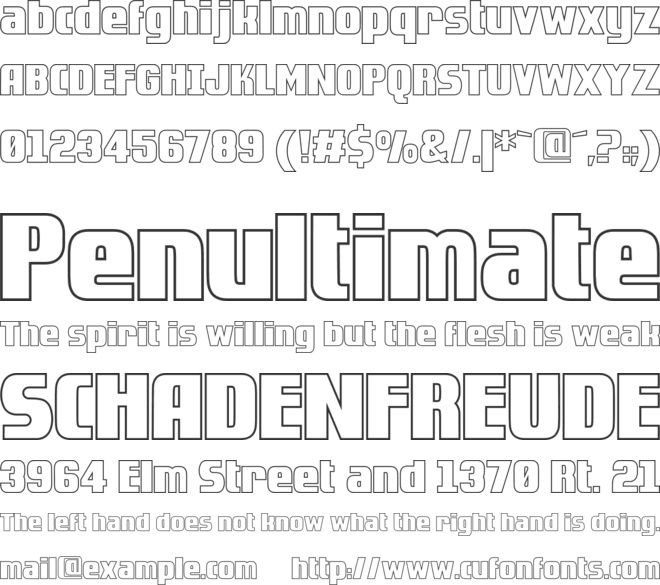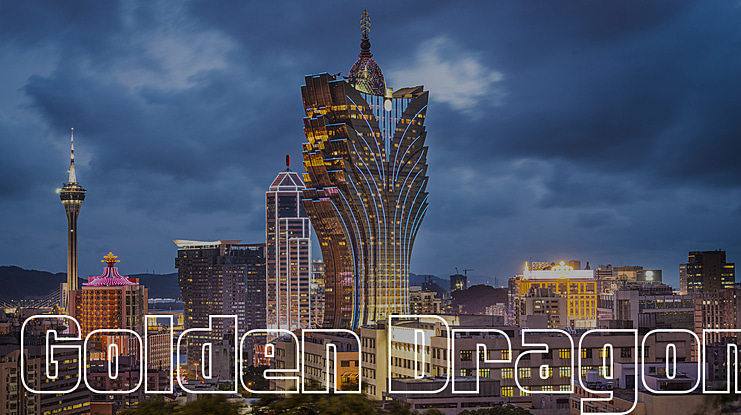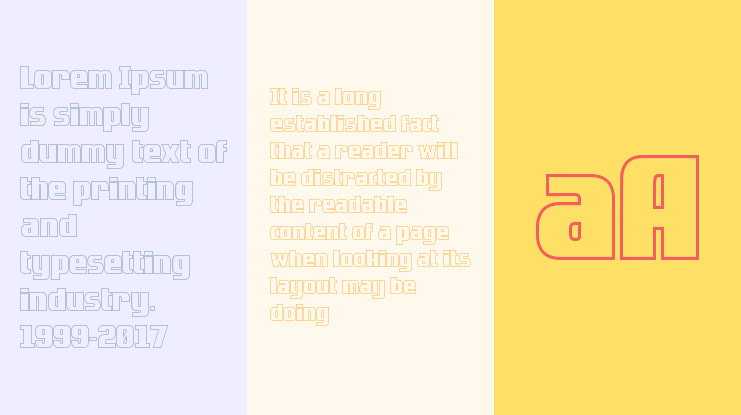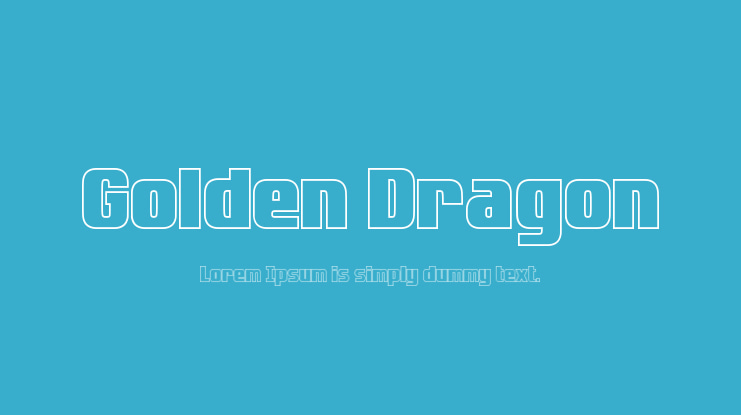
Golden Dragon Font Family
An open-source display font family based on the classic poster from 'Enter the Dragon', created in three styles: Solid, Outline and Shadow.